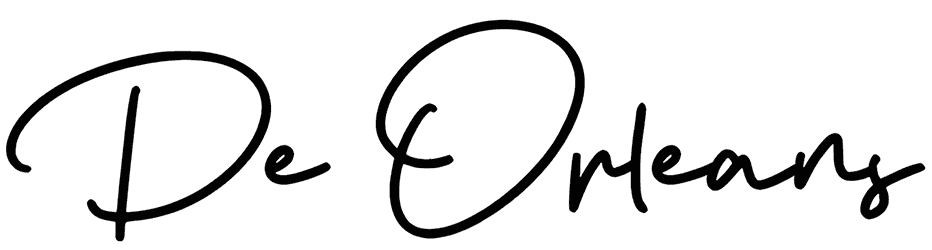
De Orleans Font
To convey a modern and chic vibe, you need a unique calligraphy font like De Orleans. This signature font has a casual, urban face, and with almost full characters, it provides you with the opportunity to use it for a variety of contexts. Design a poster, illustration, or whatever you are working on with De Orleans, and no doubt, it will cause them a natural mood.